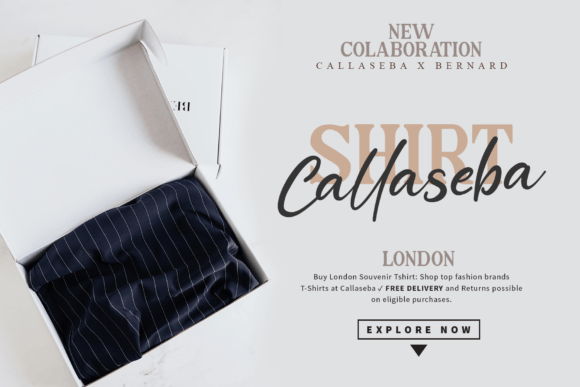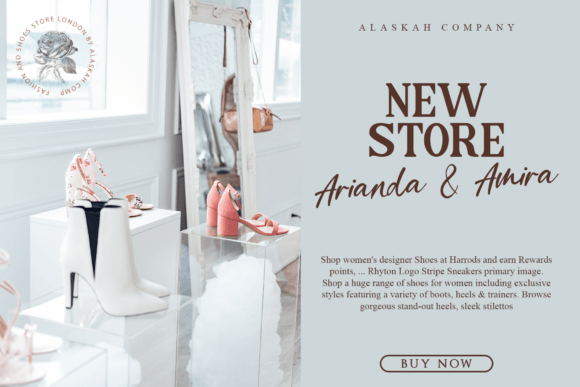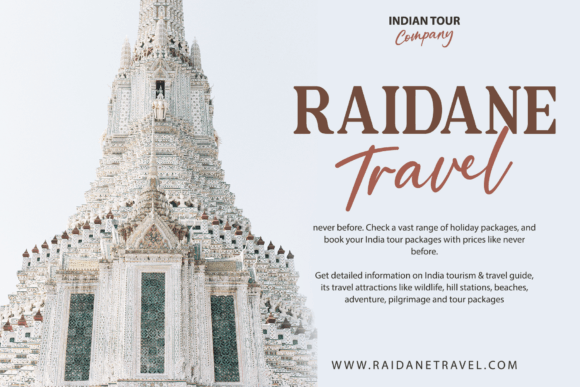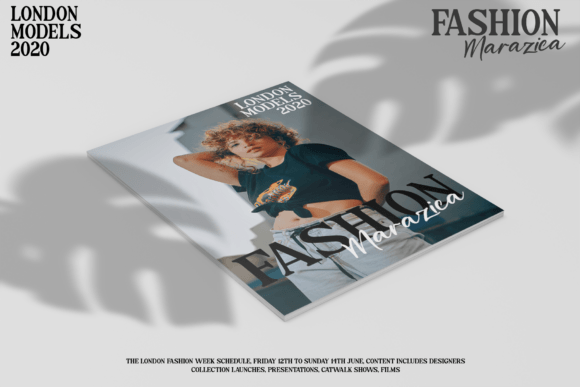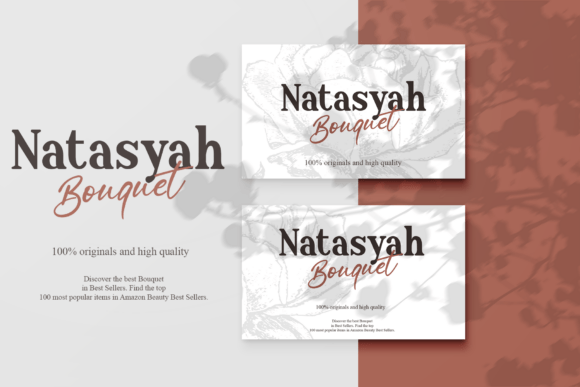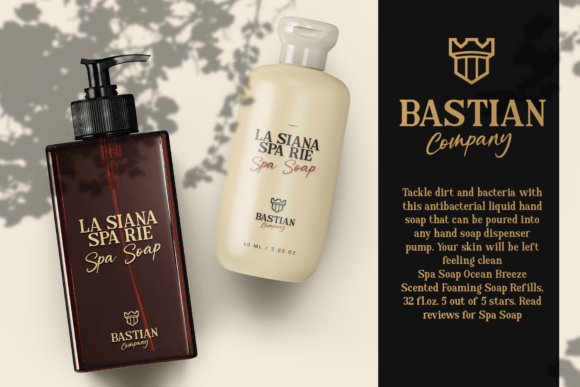
Introducing Allyssum North Font Duo: Elevate Your Designs with Elegance and Creativity
In the world of typography, finding the perfect font duo that combines elegance with modern flair can be a daunting task. However, look no further than the Allyssum North Font Duo, a stunning combination of an elegant serif and a modern script font. This versatile duo is designed to cater to any project, offering both sophistication and creativity in equal measure. Whether you’re a designer, a crafter, or simply someone who appreciates the art of typography, the Allyssum North Font Duo is set to become your go-to choice for achieving high-quality, stylish results.
The Elegance of Serif Fonts
The serif font in the Allyssum North Font Duo brings a classic, timeless feel to any design. Serif fonts are known for their traditional and dependable appearance, making them perfect for projects that require a sense of stability and professionalism. From wedding invitations and branding materials to logos and social media posts, the serif component of this duo ensures that your work exudes elegance and refinement.
The Personal Touch of Script Fonts
On the other hand, the script font in the Allyssum North Font Duo adds a personal, hand-lettered touch to your designs. Script fonts are incredibly versatile and can instantly elevate a project by adding a level of sophistication and personality. This font is perfect for adding a creative flair to wedding invitations, making branding materials stand out, and crafting unique social media posts that capture the attention of your audience.
One of the standout features of the Allyssum North Font Duo is its versatility. The combination of a classic serif and a modern script font allows designers to experiment with a wide range of design possibilities. Whether you’re aiming for a sophisticated and elegant look or a more playful and creative vibe, this font duo can deliver. The key to maximizing the potential of the Allyssum North Font Duo lies in pairing the serif and script fonts together. This pairing creates a beautiful balance of contrast and harmony, making your designs stand out.
PUA Encoding for Ease of Use
The Allyssum North Font Duo comes with PUA (Private Use Area) encoding, a feature that makes it incredibly easy to access all the cute glyphs and swashes. PUA encoding allows users to access additional characters and design elements that aren’t available in the standard character set. This means you can effortlessly incorporate unique design elements into your work, adding an extra layer of creativity and customization without the hassle.
Applications of Allyssum North Font Duo
The applications of the Allyssum North Font Duo are vast and varied. Here are a few ideas to get you started:
- Wedding Invitations: Create stunning wedding invitations that set the tone for your special day. The combination of the elegant serif and playful script fonts is perfect for wedding stationery.
- Branding Materials: Elevate your brand with a unique and recognizable typography style. The Allyssum North Font Duo can help you create a cohesive and professional brand image.
- Logos: Design memorable logos that stand out. The script font can add a touch of creativity, while the serif font provides stability and professionalism.
- Social Media Posts: Make your social media posts stand out with eye-catching typography. The Allyssum North Font Duo is perfect for creating engaging and stylish content.
The Allyssum North Font Duo is a game-changer for designers and crafters looking for a versatile and stylish typography solution. With its combination of an elegant serif and a modern script font, this duo offers the perfect balance of sophistication and creativity. The added benefit of PUA encoding makes it easy to access a wide range of glyphs and swashes, allowing for endless design possibilities. Whether you’re working on wedding invitations, branding materials, logos, or social media posts, the Allyssum North Font Duo is your key to creating high-quality, stylish results every time.
So why settle for ordinary fonts when you can elevate your designs with the Allyssum North Font Duo? Discover the difference that this stunning font duo can make in your next project.